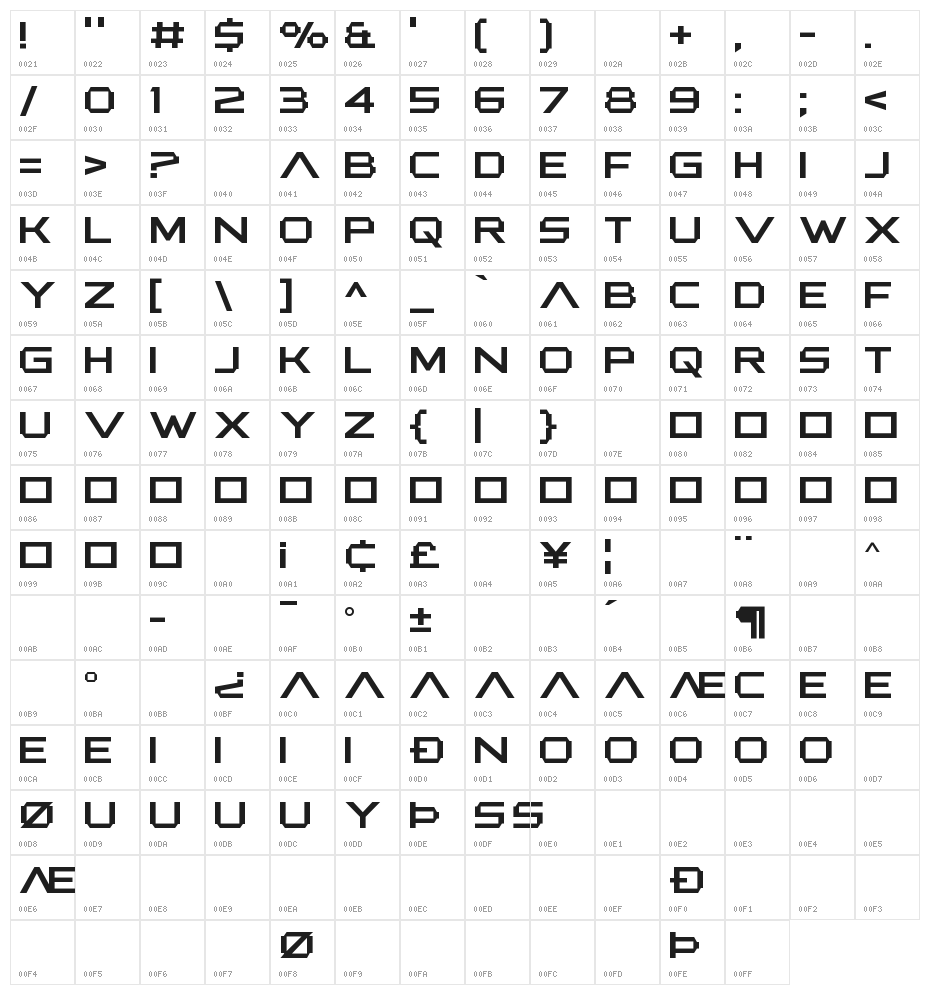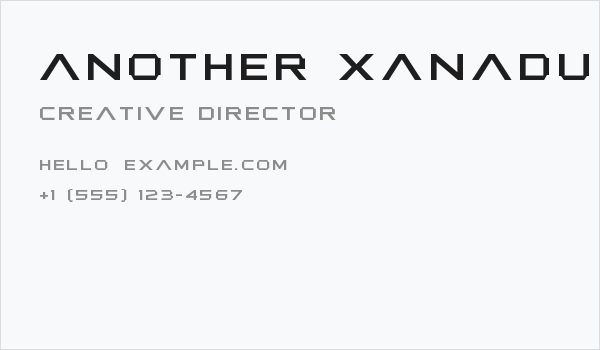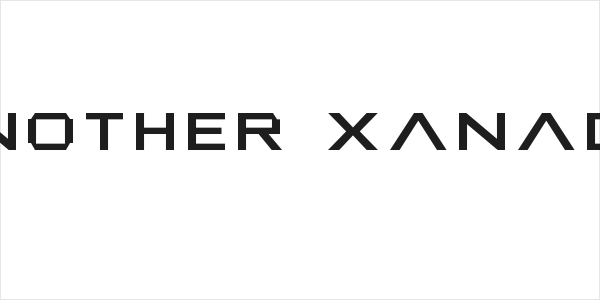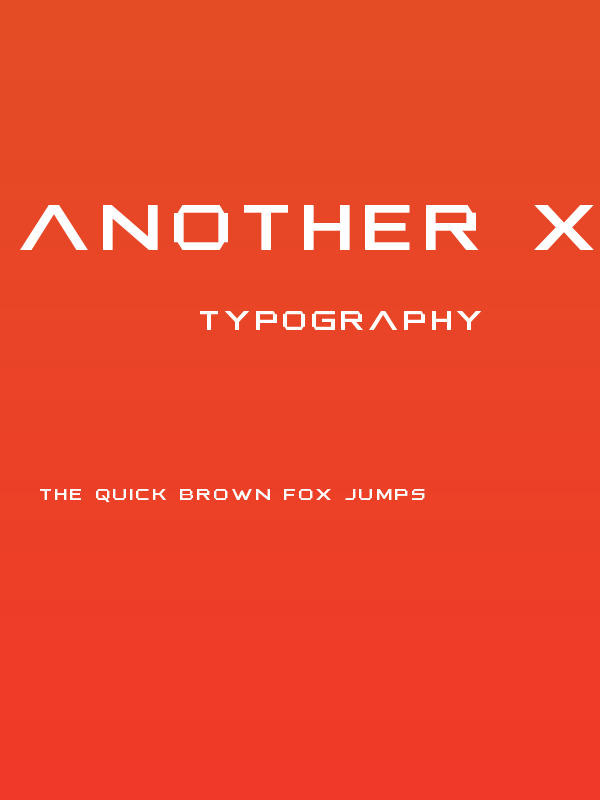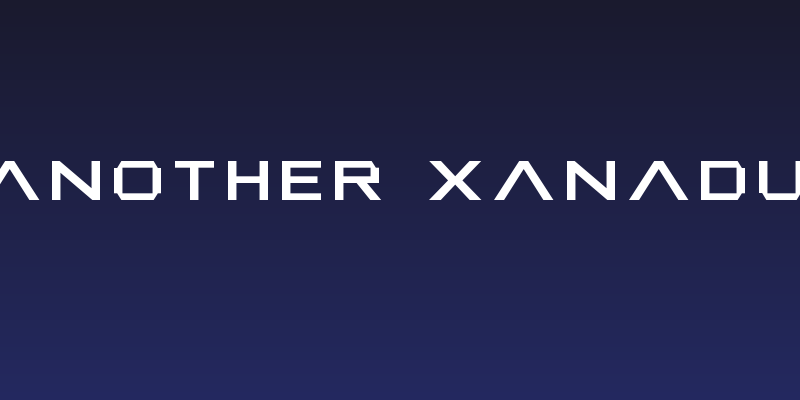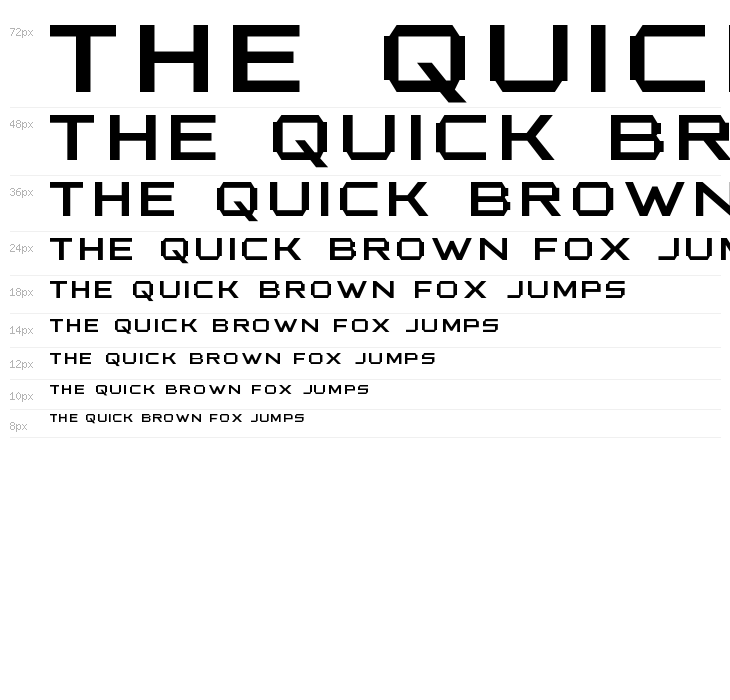
Another Xanadu Font
Another Xanadu Description
This font features a bold, geometric design with a distinctly digital aesthetic. Each character is constructed with sharp, angular lines, giving it a pixelated, retro appearance reminiscent of early computer graphics. The uppercase and lowercase letters maintain a consistent height, contributing to a uniform look across the typeface. Numbers and special characters follow the same design principles, ensuring a cohesive visual style. The font's blocky structure makes it highly legible at various sizes, while its unique style adds a modern, tech-inspired flair to any project.
Proposed ProjectsIdeal for tech-related branding, video game design, digital art projects, and futuristic-themed posters.